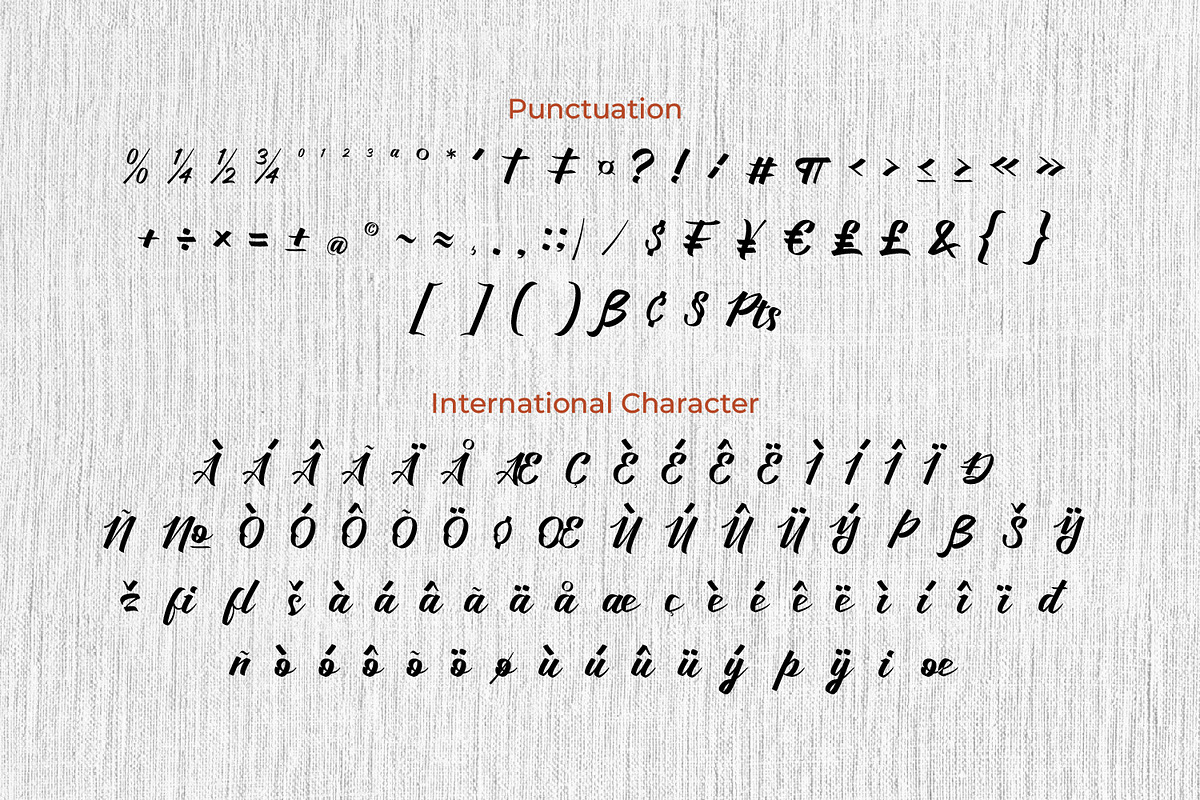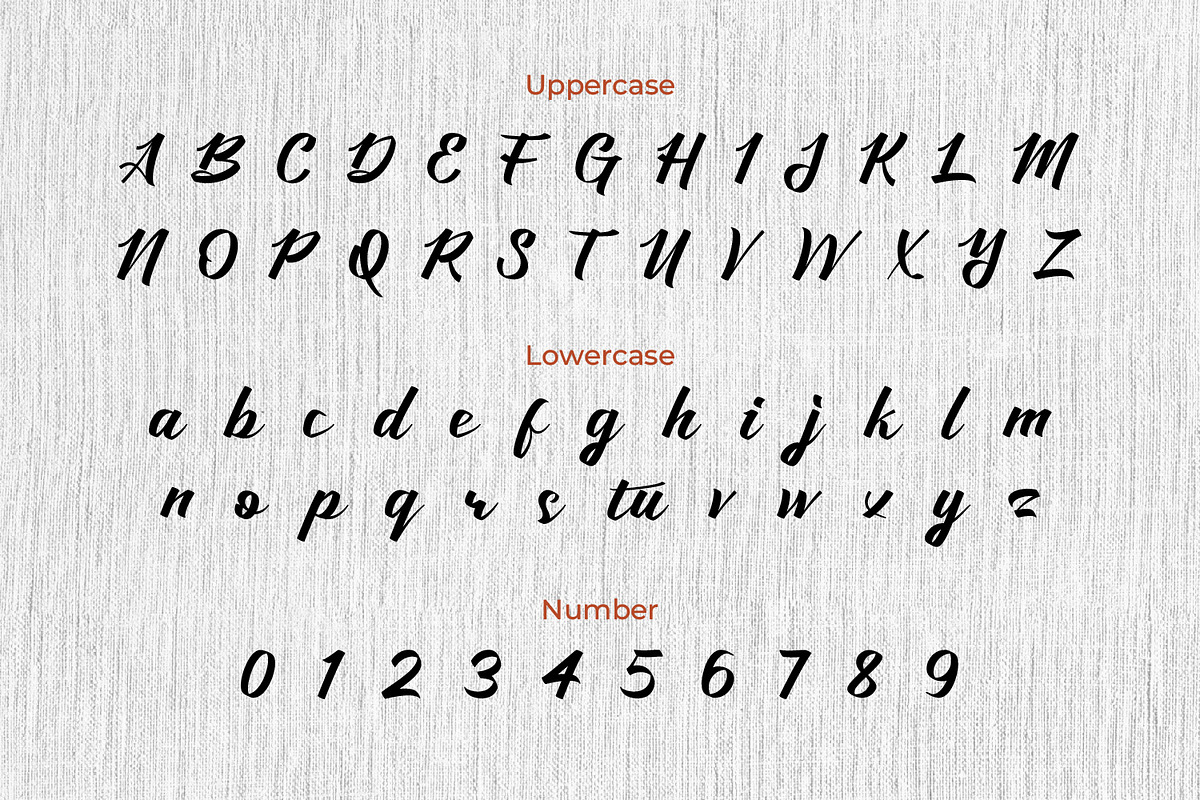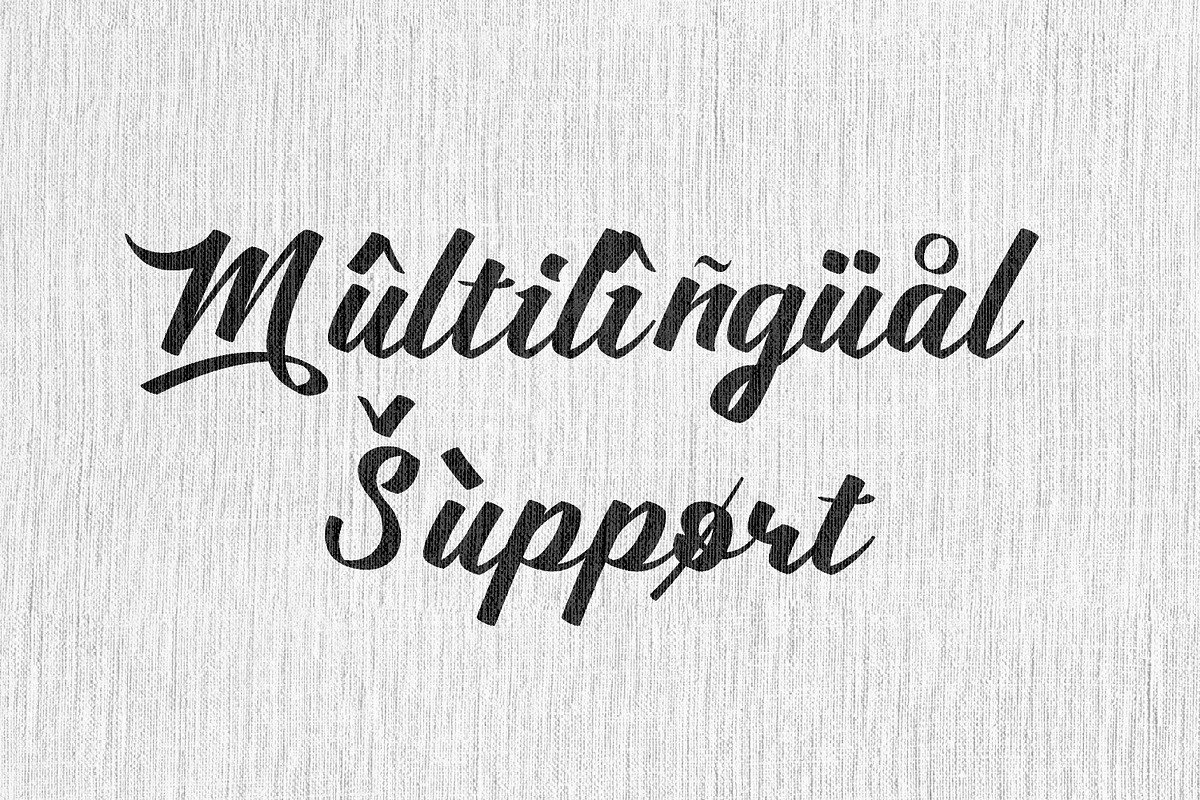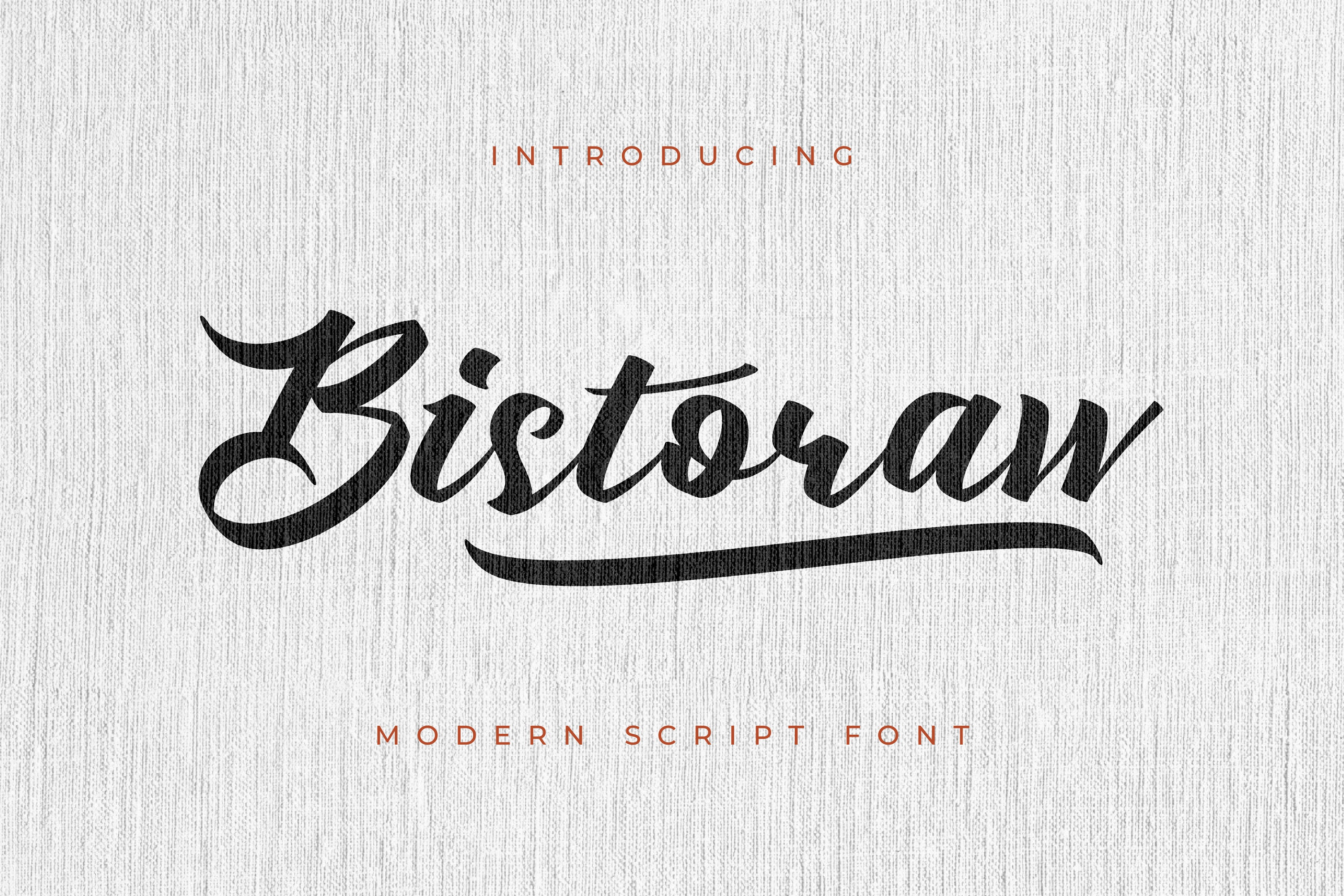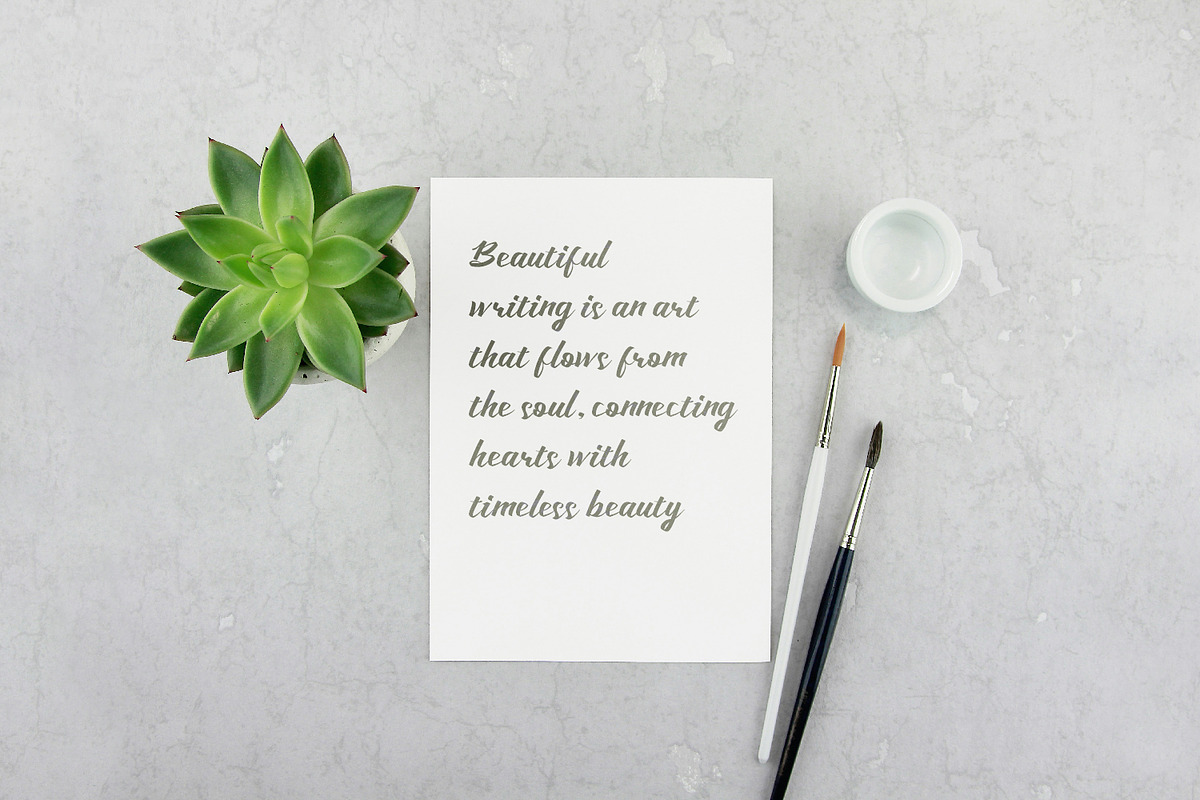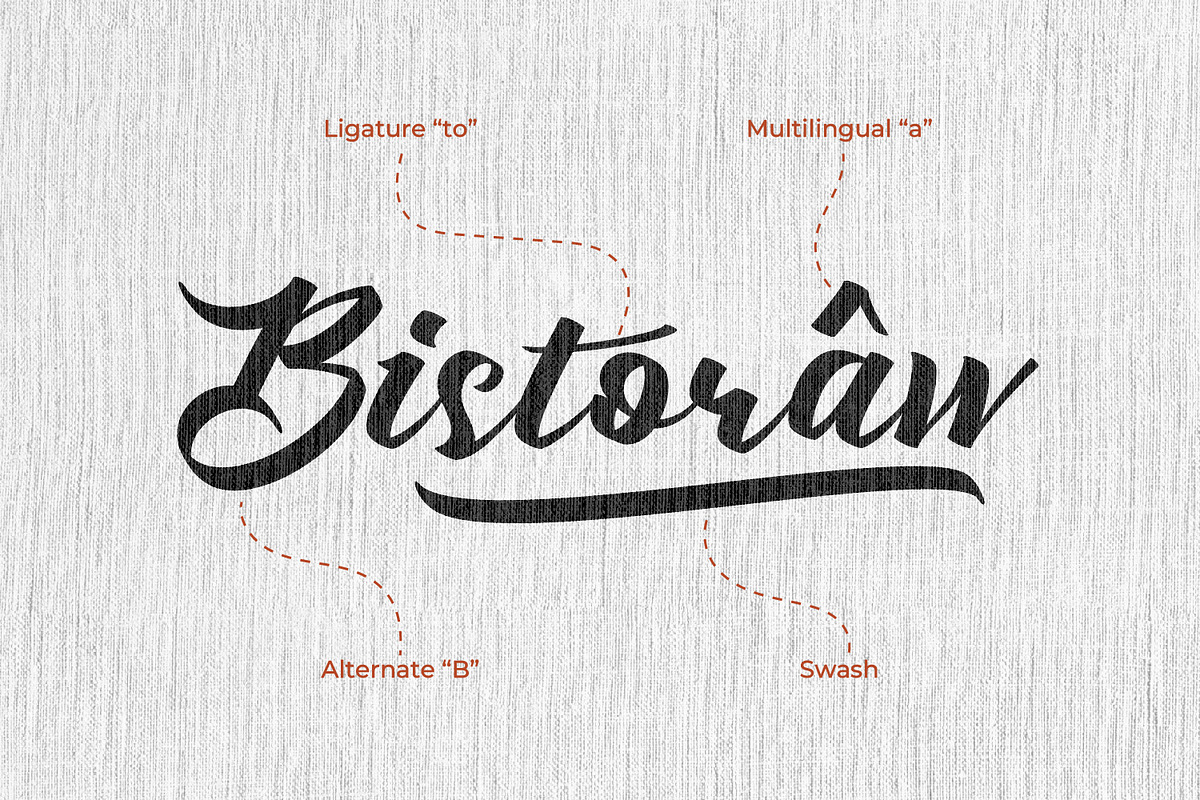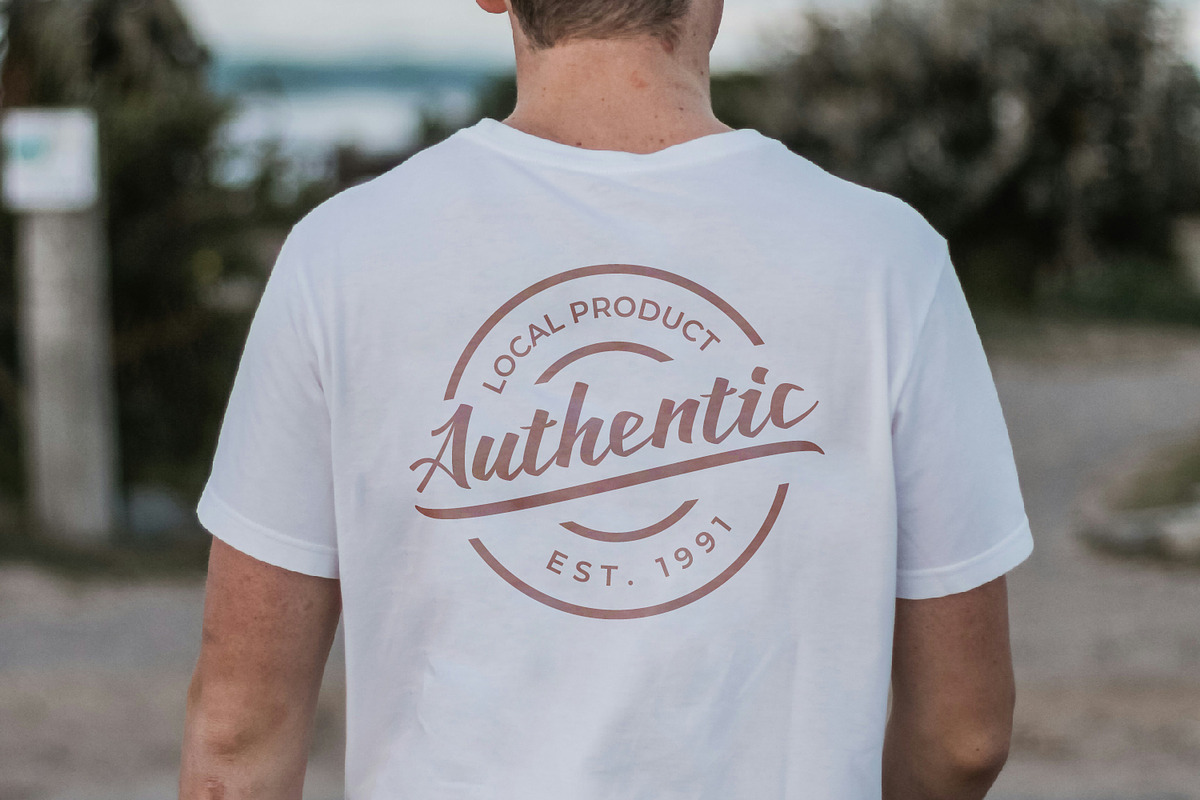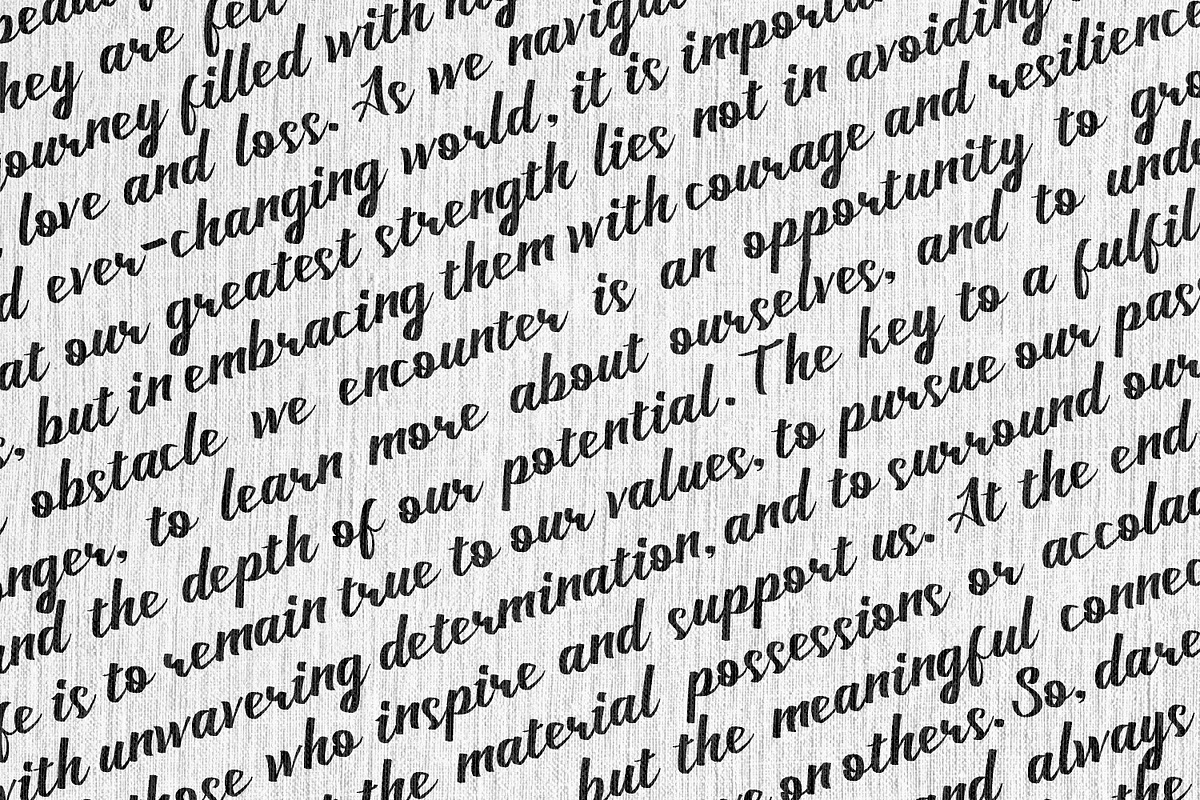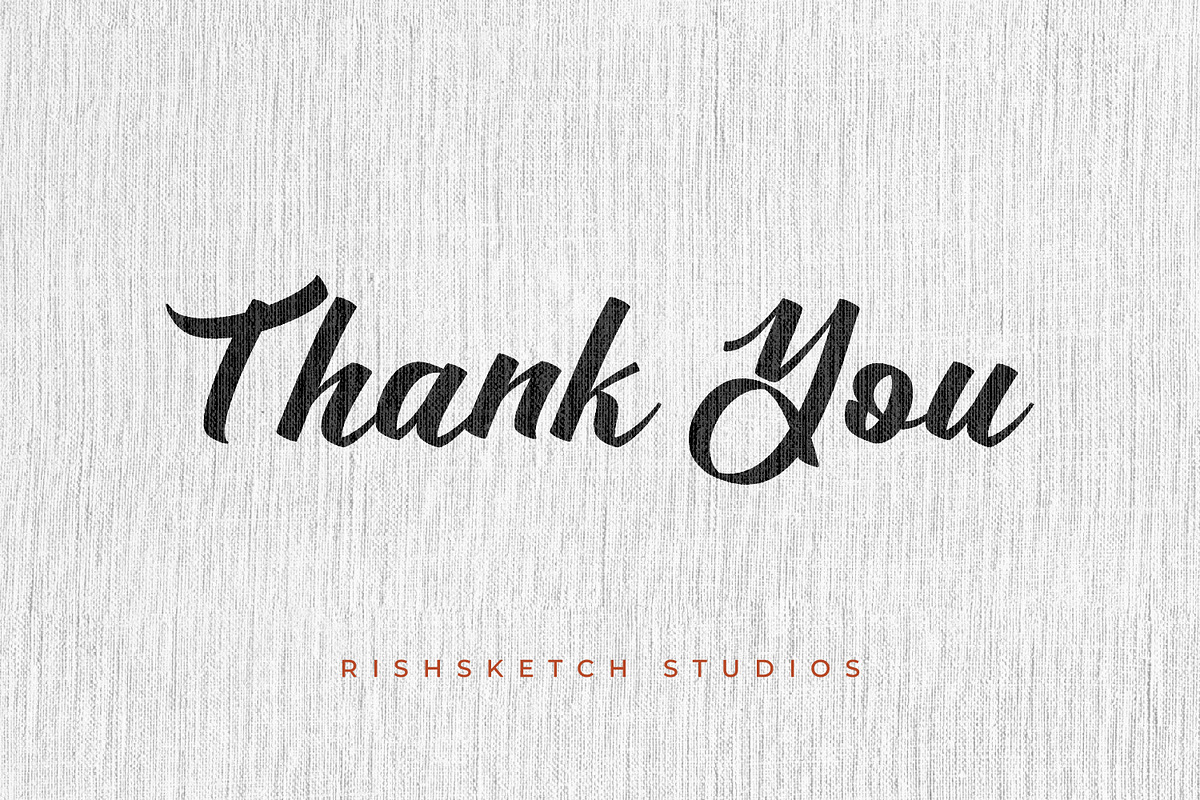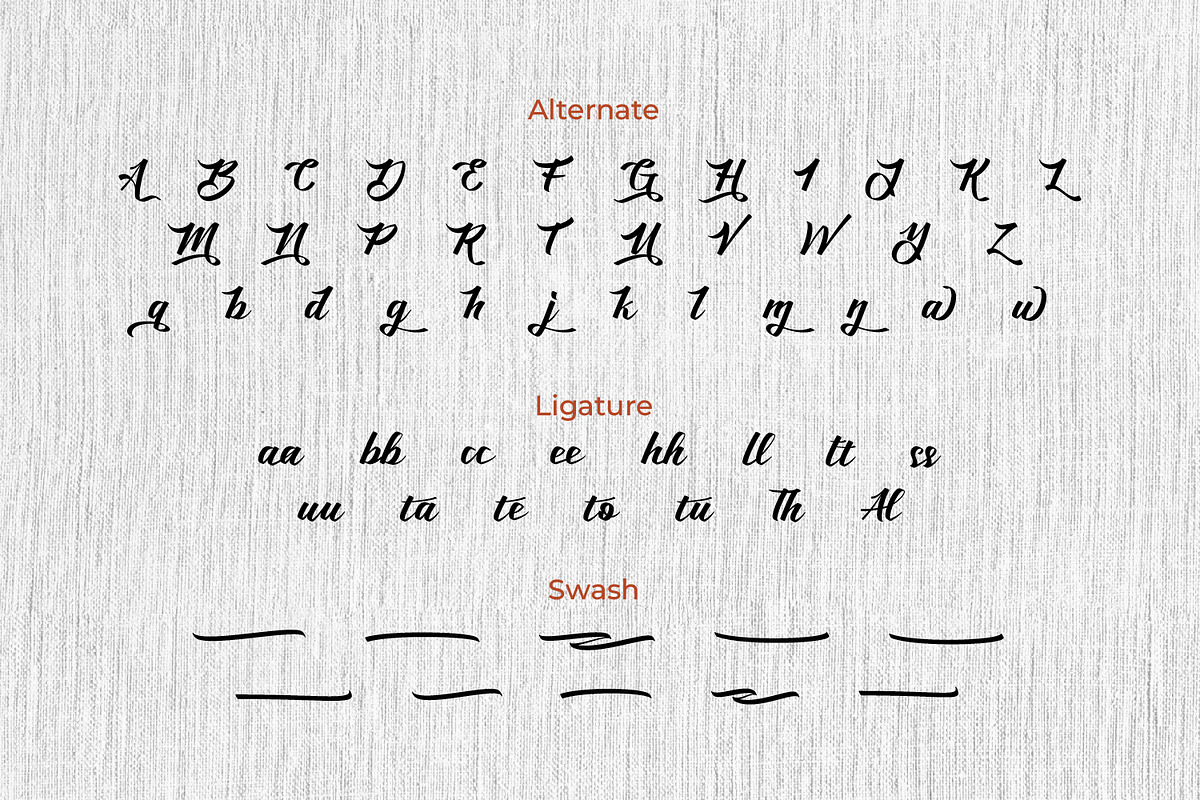
Bistoraw - Modern Script Font
Bistoraw - Modern Script Font, from Rishsketch Studios, is a premium Script Font, perfect for any project that requires a distinctive, and premium feel.
- Ligature, Alternate & amp; Multilingu